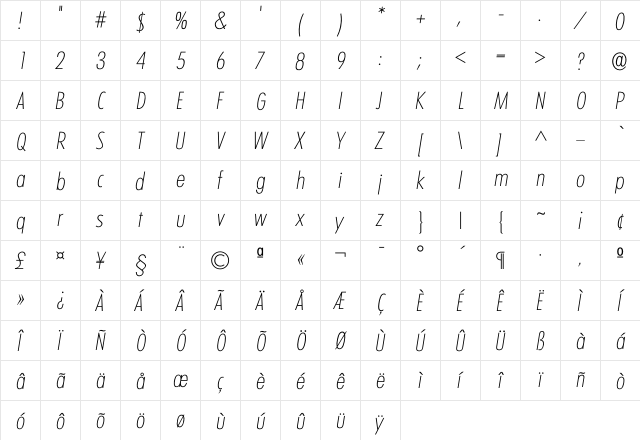
Iclimerick Xlight
| Style | Xlight |
Design Context for Iclimerick Typeface
Iclimerick offers clean, dependable letterforms without strong stylistic allegiance, making it a practical choice for designers who need flexibility. Its slender proportions lend an understated elegance to any composition.